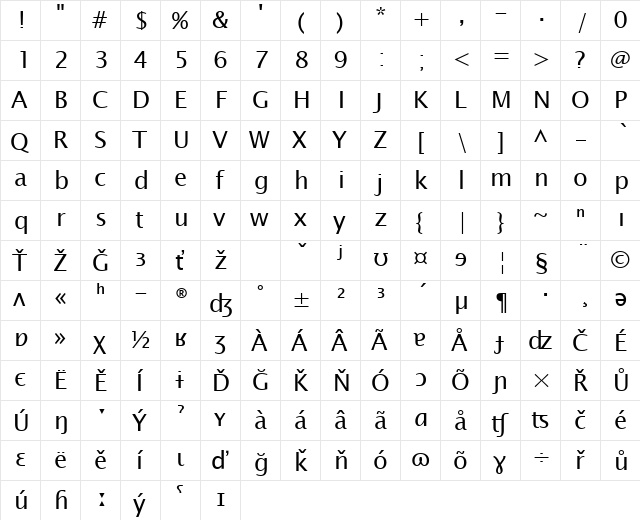
Darseni e Afshenasi Regular
| Foundry | Liborsoft Typography |
| Designer | Libor Sztemon |
Design Context for Darseni e Afshenasi Typeface
Darseni e Afshenasi is a composed and adaptable typeface that performs quietly and consistently across a wide range of design contexts.